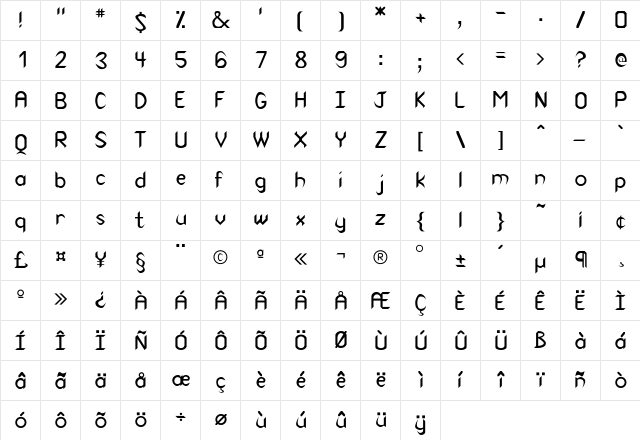
PCCoptath Regular
Design Context for PCCoptath Typeface
PCCoptath offers clean, dependable letterforms without strong stylistic allegiance, making it a practical choice for designers who need flexibility.